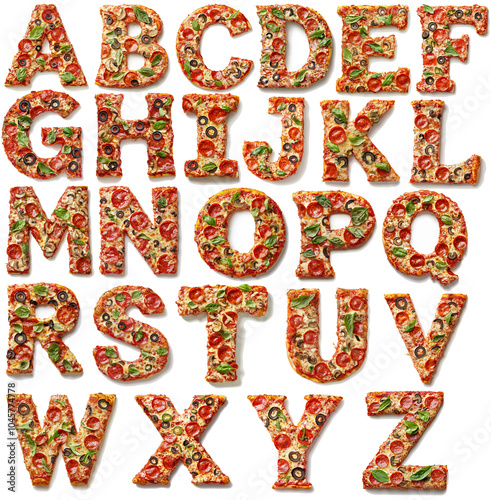
English alphabet crafted from appetizing pizza, creatively blending the culinary world with linguistic elements. Font collection for food courts, pizza delivery, fast food ad banners and flyers